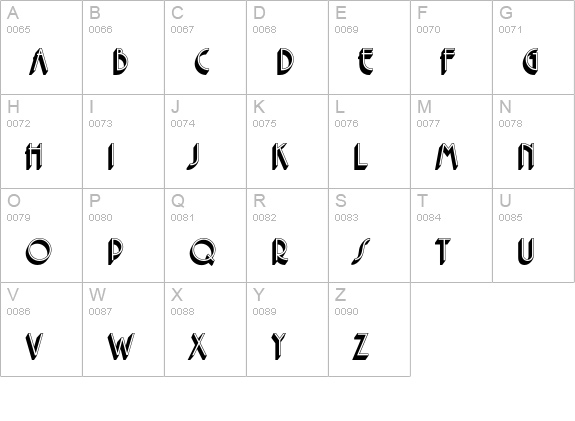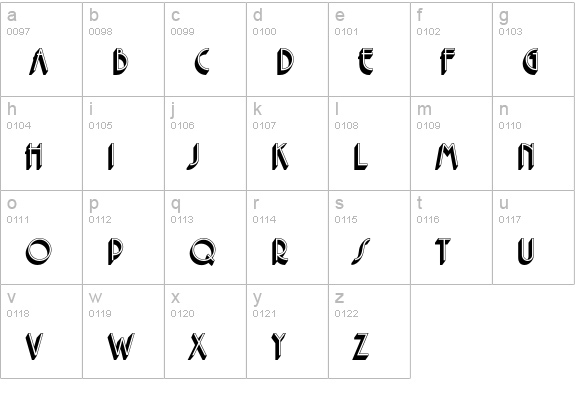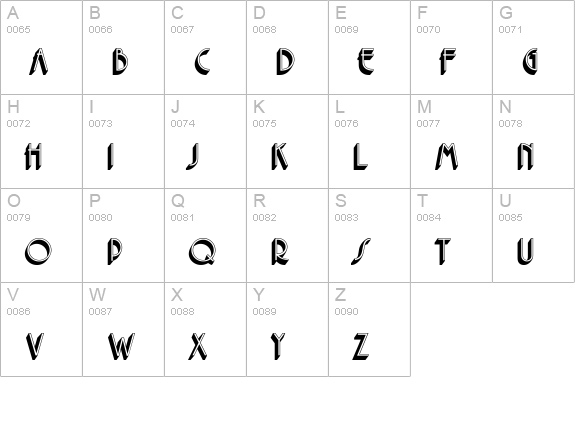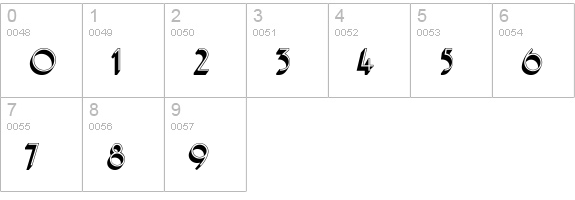
Premier Shaded Std is a stylish and versatile font that brings a touch of elegance to any design project. With its unique shading and intricate details, this font is sure to make a statement. Whether you're creating invitations, logos, or signage, Premier Shaded Std will add a sophisticated touch to your work. The best part? Premier Shaded Std is completely free to download at FontsMarket.com. This means you can easily access this beautiful font and use it in your projects without any cost. Don't miss out on the opportunity to enhance your designs with the timeless appeal of Premier Shaded Std. Download it today and elevate your creative work to new heights.